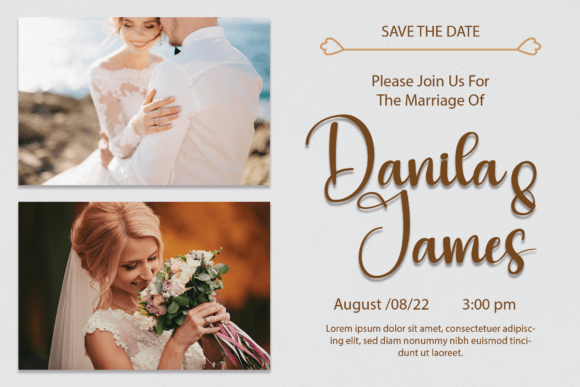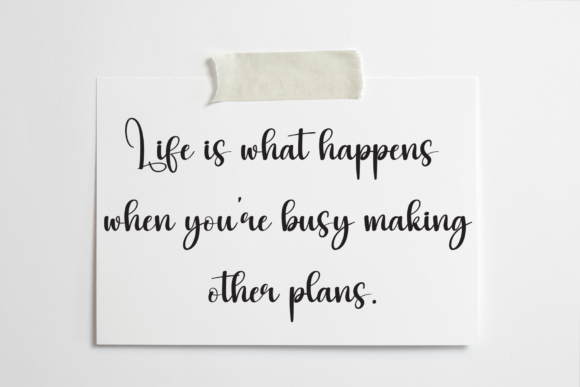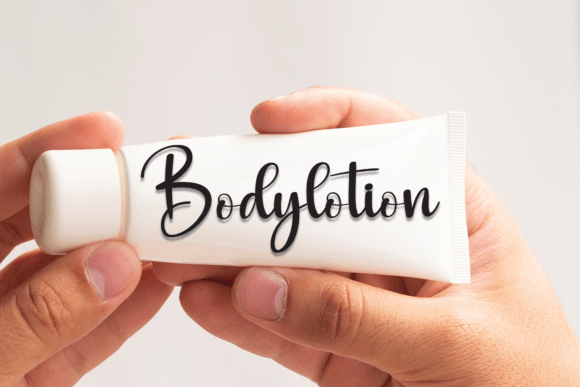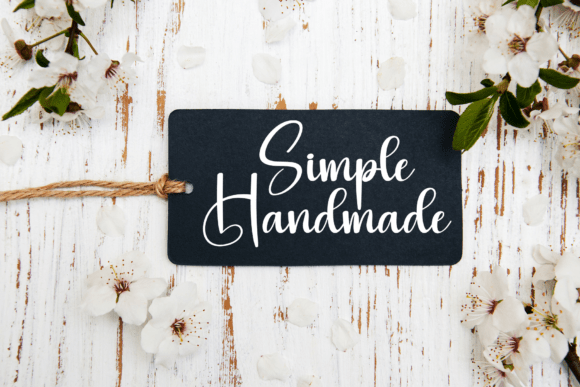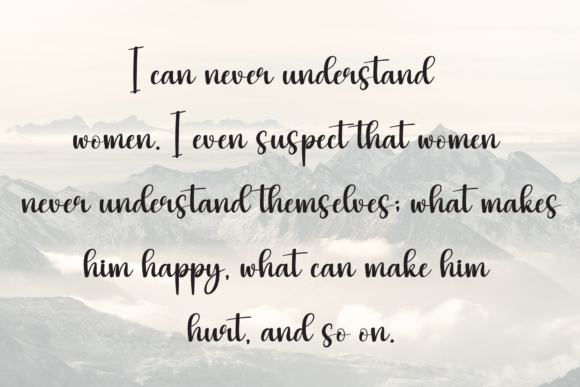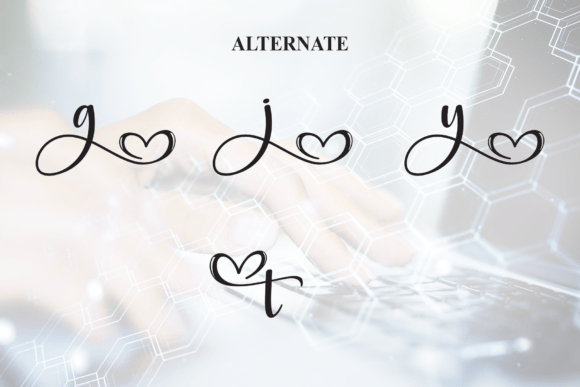
Discover the Elegance of Digital: A Stunning Handwritten Font
In the world of typography, a great font can elevate your design project from ordinary to extraordinary. If you’re on the hunt for a typeface that exudes elegance, sophistication, and a touch of modern flair, look no further than Digital. This exquisite handwritten font is meticulously crafted to capture the essence of calligraphic artistry while maintaining a fresh, contemporary feel.
The Art of Digital Font
Digital is more than just a font; it’s a statement piece. Its classy calligraphic influences are evident in its fluid strokes and refined letterforms, making it perfect for projects that demand a high level of sophistication. Whether you’re designing a luxury brand logo, crafting a beautiful wedding invitation, or creating engaging social media content, Digital is the perfect companion to help you convey your message in style.
What Makes Digital Stand Out?
- Unique Character: Digital boasts a distinctive character that sets it apart from more traditional fonts. Its handwritten nature gives it a personal touch, making it ideal for designs that require a human feel.
- Versatility: This font is incredibly versatile, suitable for a wide range of applications, from high-end branding and advertising to digital media and personal projects.
- Legibility: Despite its elegant and cursive nature, Digital maintains excellent legibility, ensuring your message is conveyed clearly and effectively.
- Contemporary Appeal: With its fresh and modern take on traditional calligraphy, Digital is perfect for designers and crafters looking to create contemporary, visually appealing designs.
Why Choose Digital for Your Projects?
Choosing the right font for your project can be daunting, but with Digital, you’re making a choice that will undoubtedly elevate your design. Here are a few reasons why Digital should be at the top of your list:
- Emotional Connection: The personal and elegant nature of Digital helps create an emotional connection with your audience, making your designs more impactful.
- Professionalism: Its refined and sophisticated look lends a professional edge to your projects, essential for establishing credibility and trust.
- Creativity: Digital’s unique style inspires creativity, allowing you to experiment with different design concepts and push the boundaries of your imagination.
How to Use Digital in Your Designs
Integrating Digital into your workflow is straightforward. Here are some tips to get you started:
- Pair it Wisely: Combine Digital with complementary fonts to create visual interest and hierarchy in your designs.
- Experiment with Sizes: Play with different font sizes to emphasize certain elements and create a dynamic layout.
- Color Matters: Choose colors that reflect the mood and personality of your brand or project, and don’t be afraid to experiment with color gradients or textures.
Digital is not just a font; it’s a design experience. With its exquisite handwritten style, classy calligraphic influences, and contemporary freshness, it’s poised to become your new favorite. Whether you’re a seasoned designer or a crafting enthusiast, Digital offers the perfect blend of elegance, versatility, and creativity to bring your projects to the highest levels. Fall in love with Digital and discover a world of limitless design possibilities.